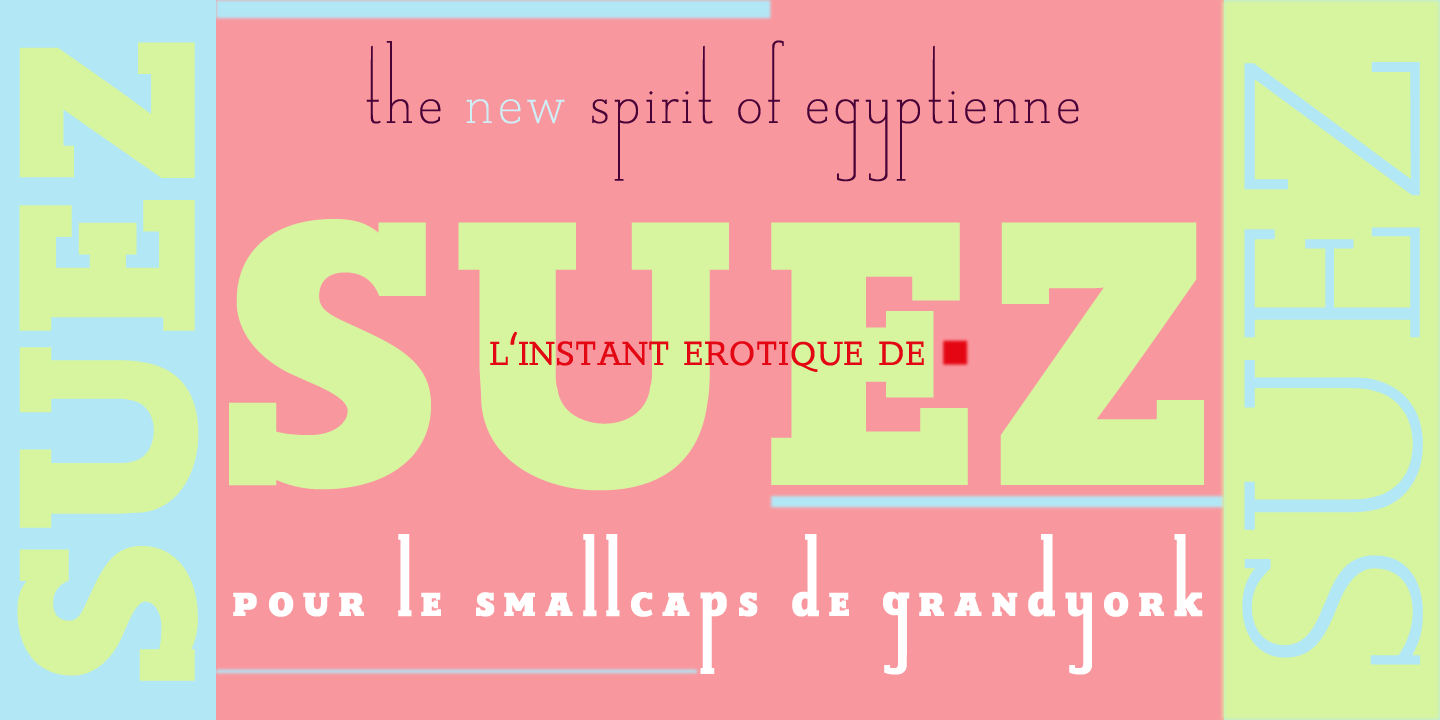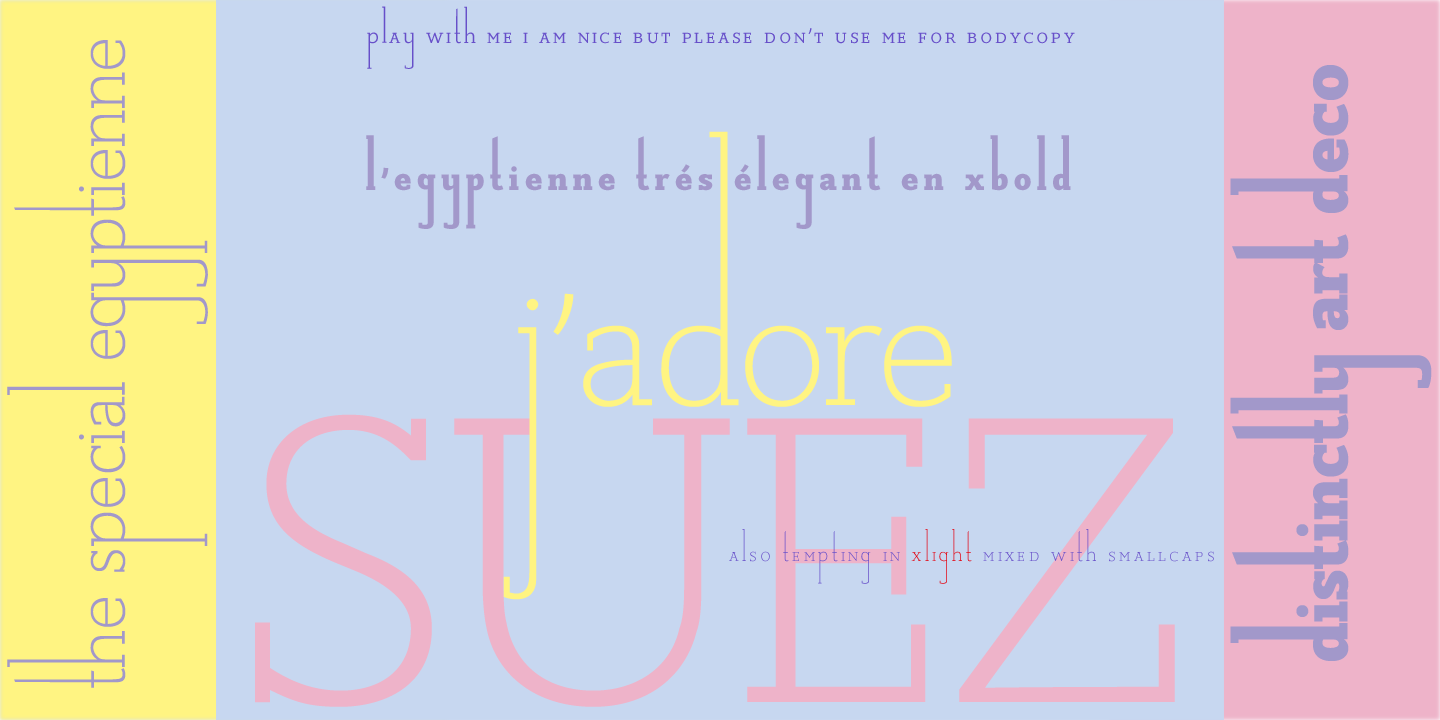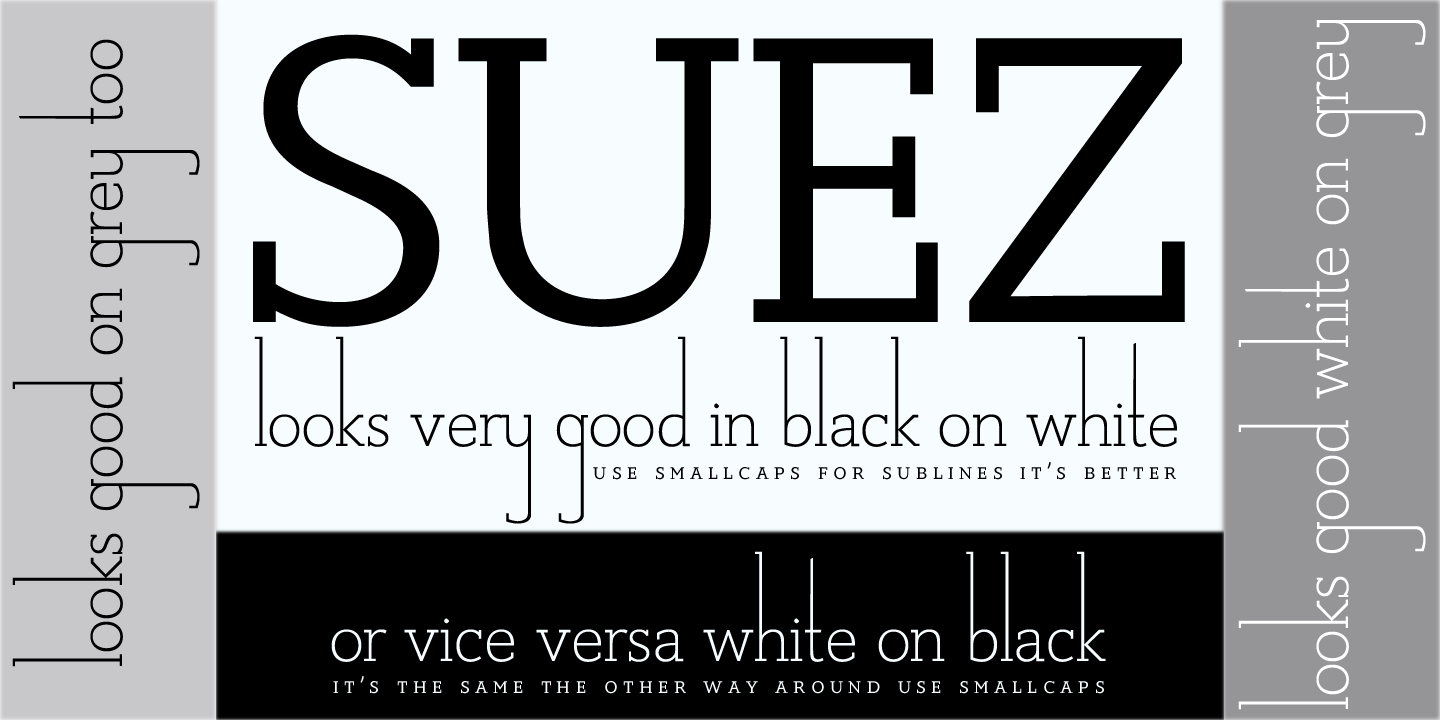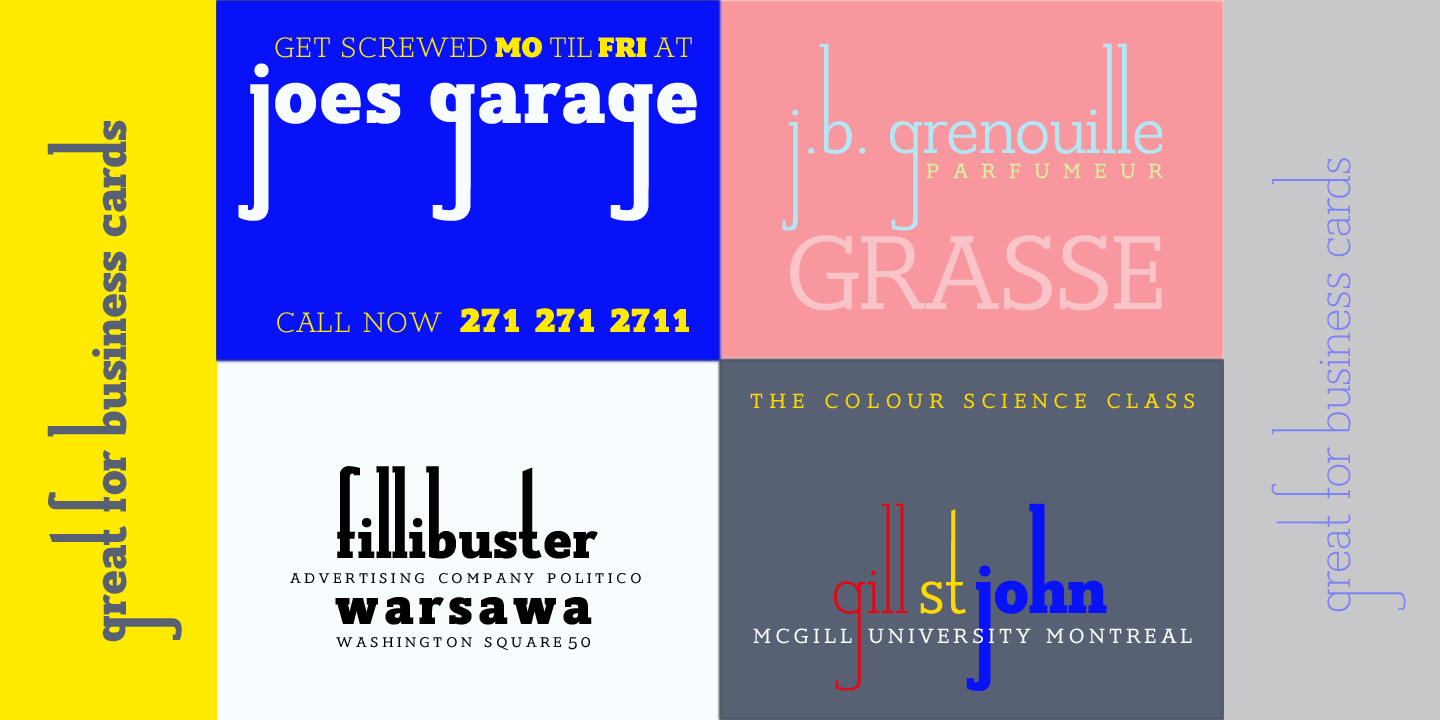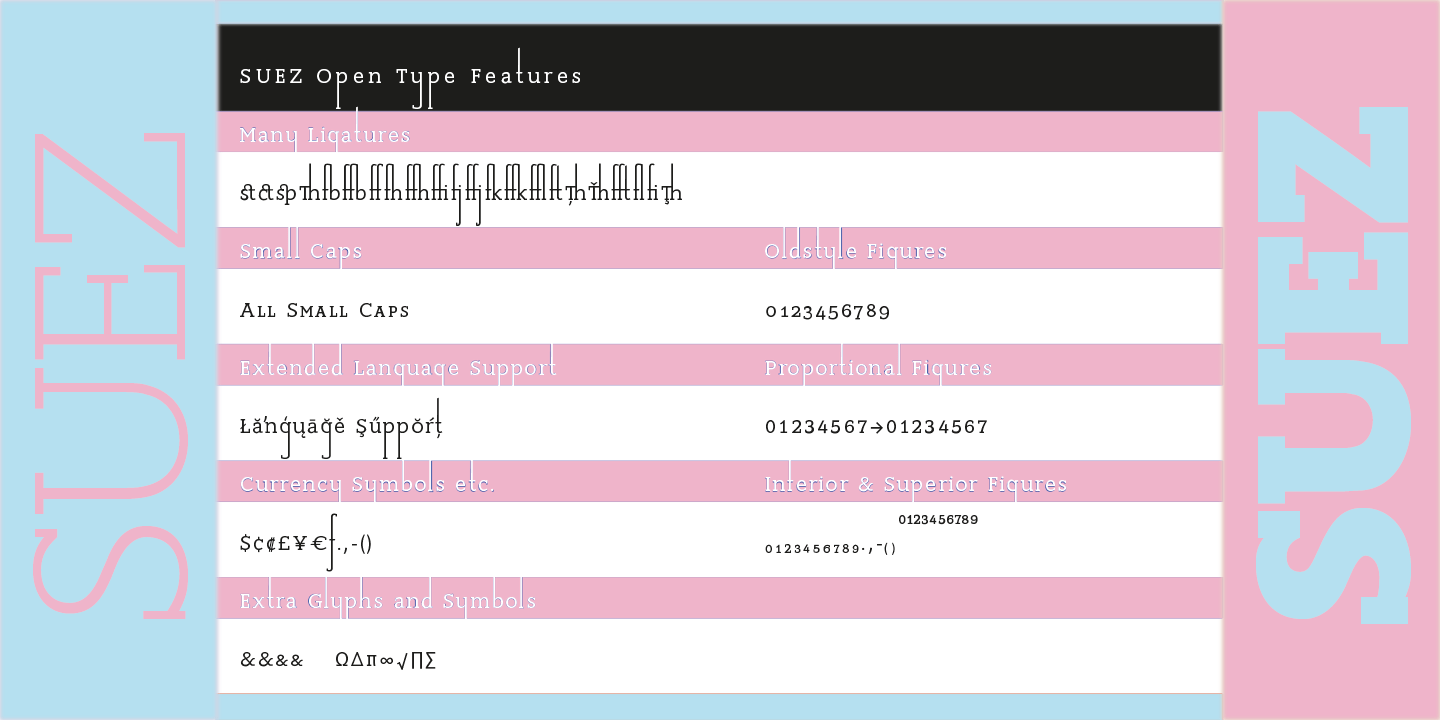
Suez
Font Family by Wiescher Design
SUEZ is a very special 'Egyptienne' style font with extra long ascenders and descenders. It comes in three weights Extra Light, Normal and Extra Bold. Because of its unique design with the long descenders and ascenders this font should not be used for long copy. The new font has a distinct Art deco touch to it. It will give that extra touch to your business-cards, invitations and labels of all kinds. Forget that decorative handwriting, SUEZ will be a much more individualistic choice. Since it is an Egyptienne it had to get an Egyptian name, hence SUEZ. All the gods names were already taken. Enjoy!